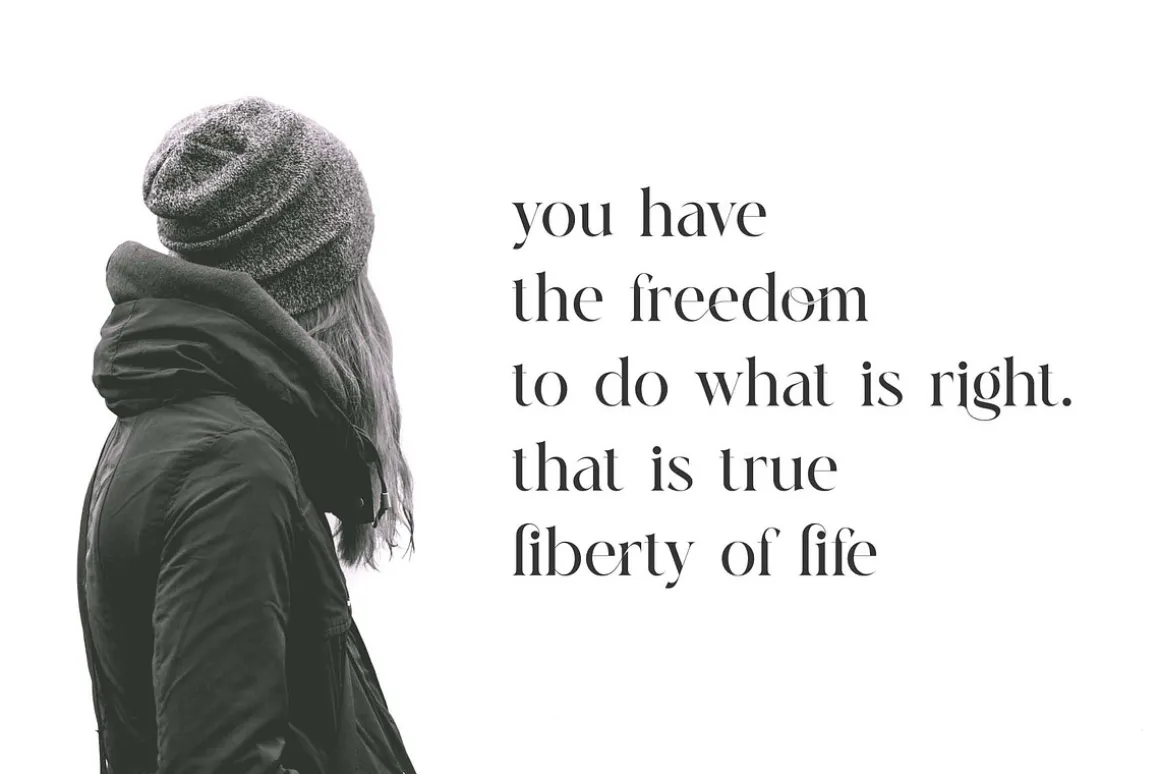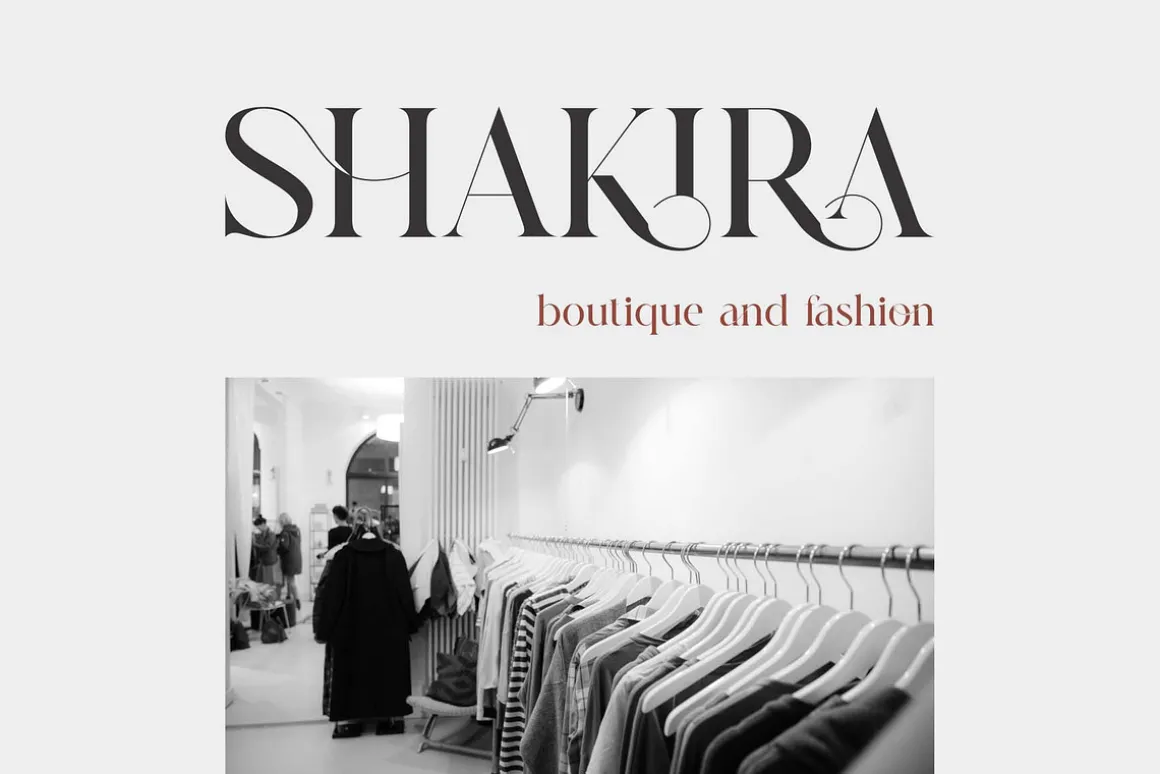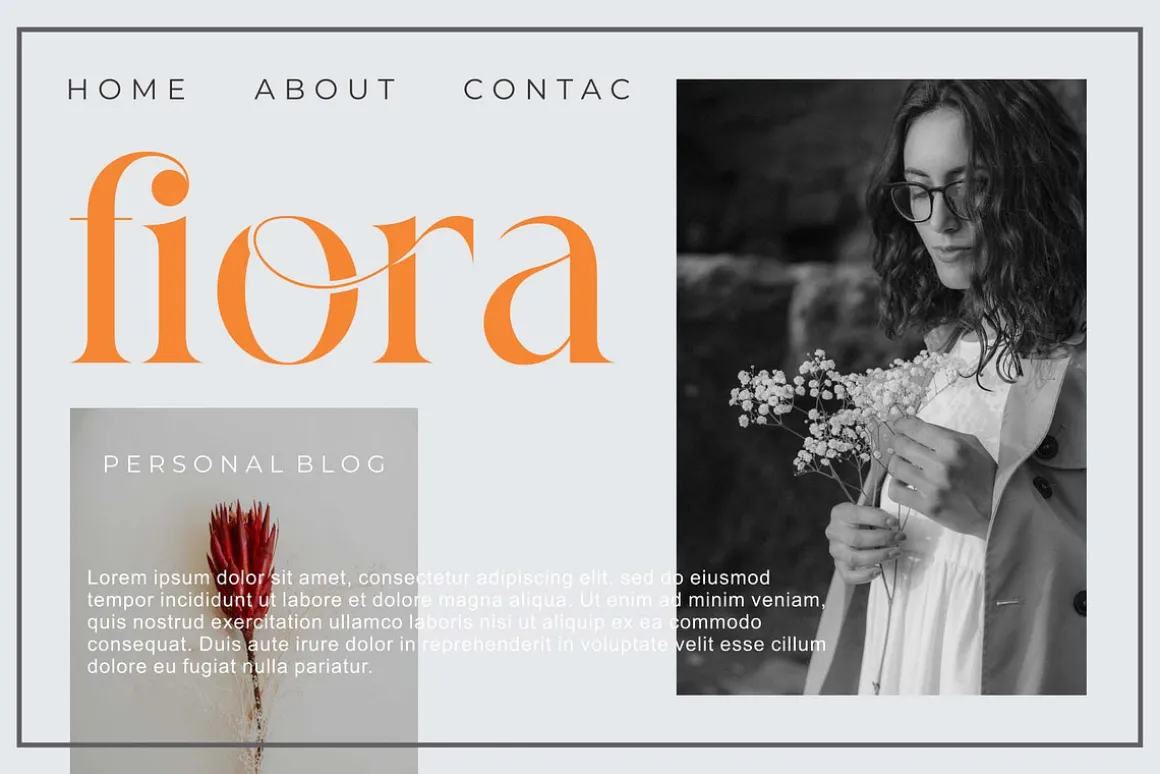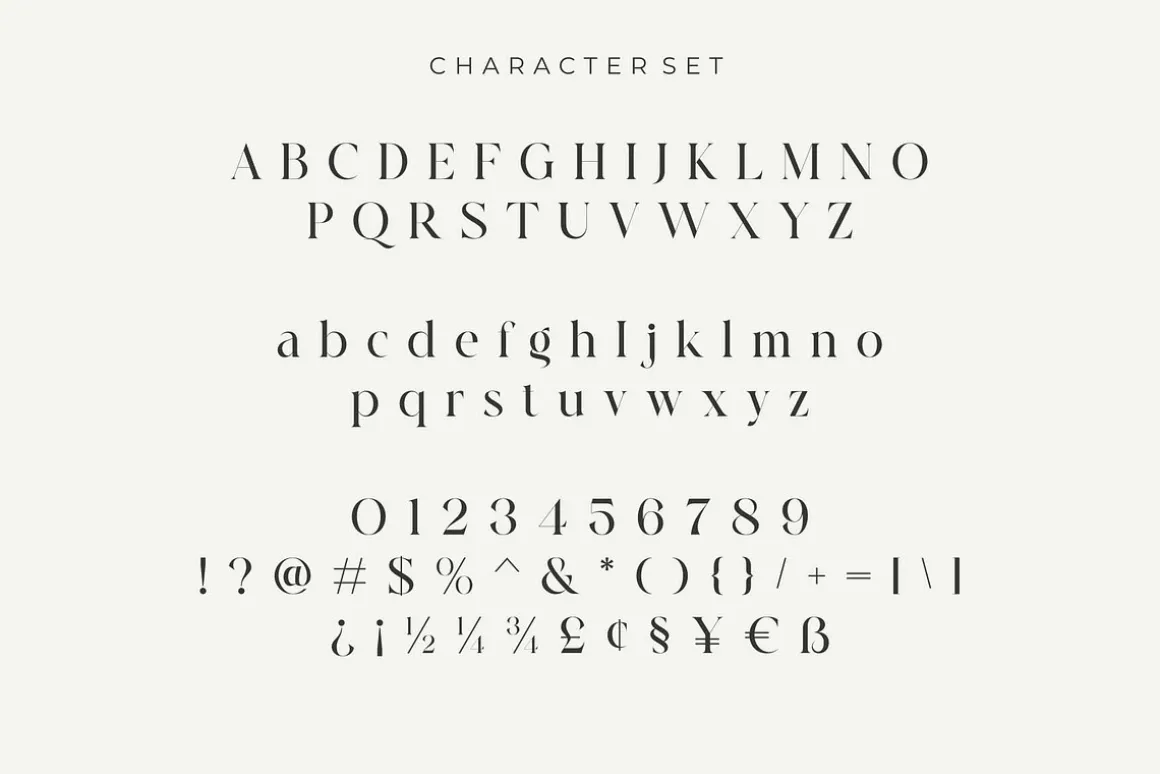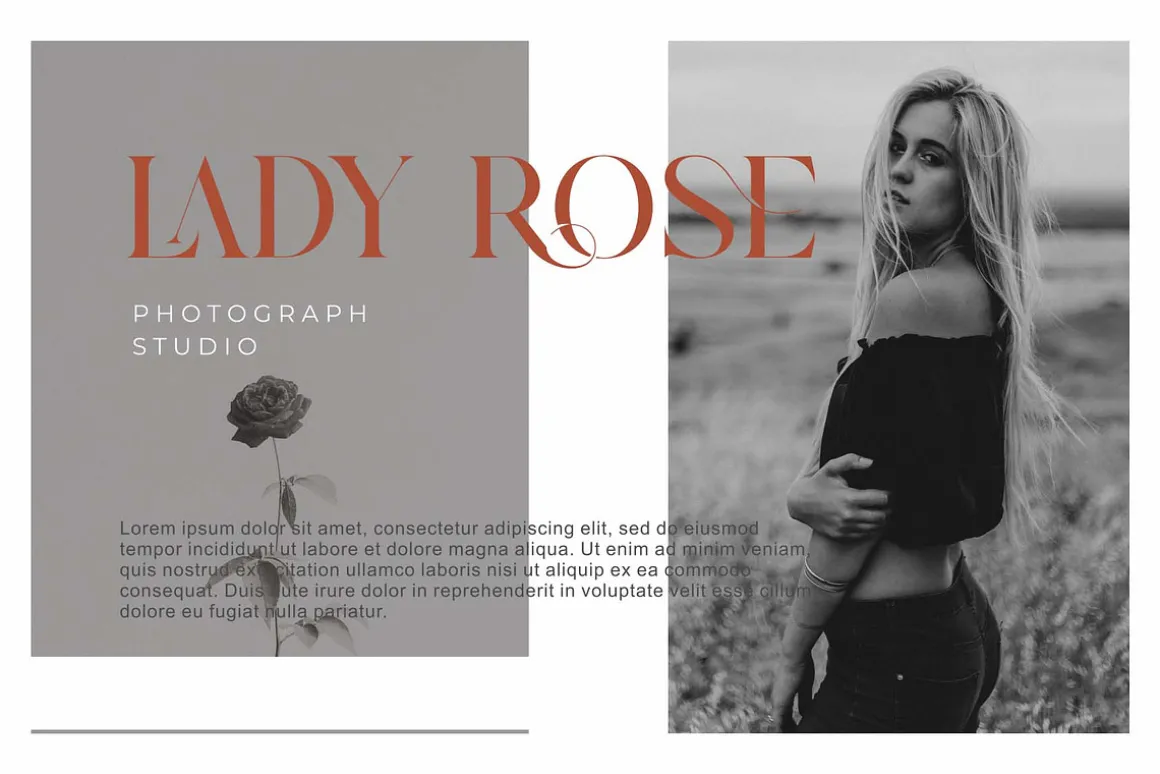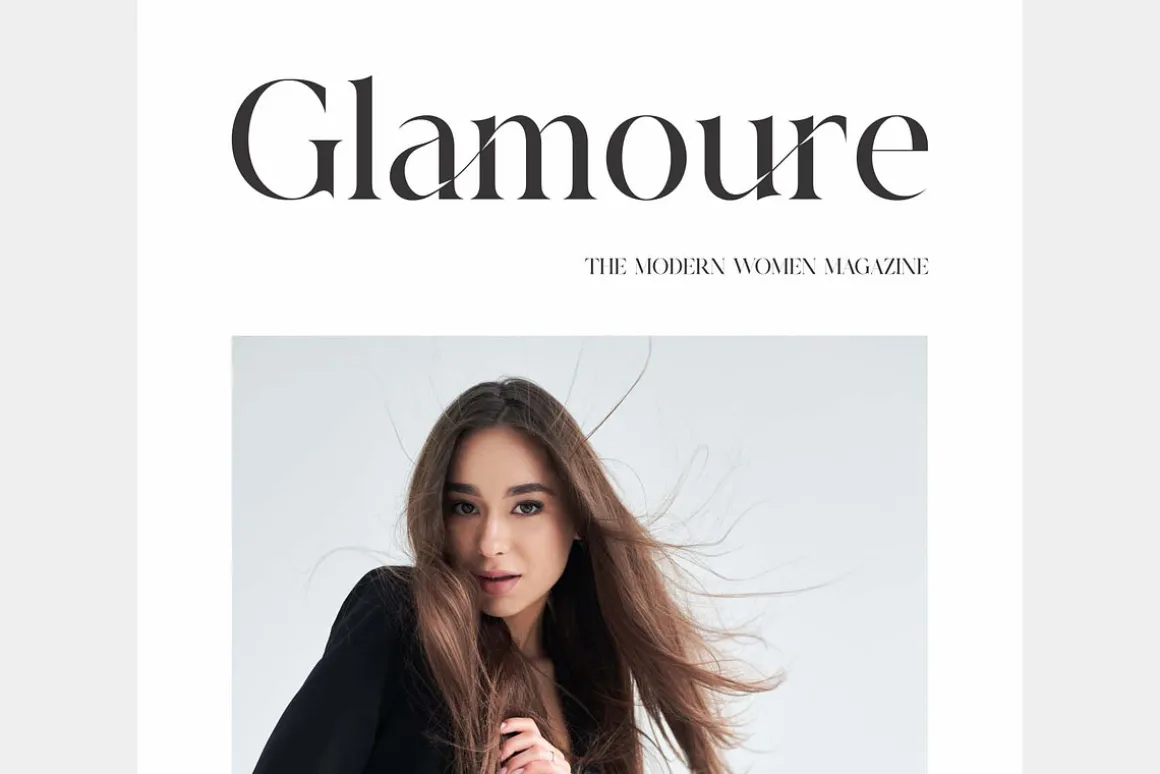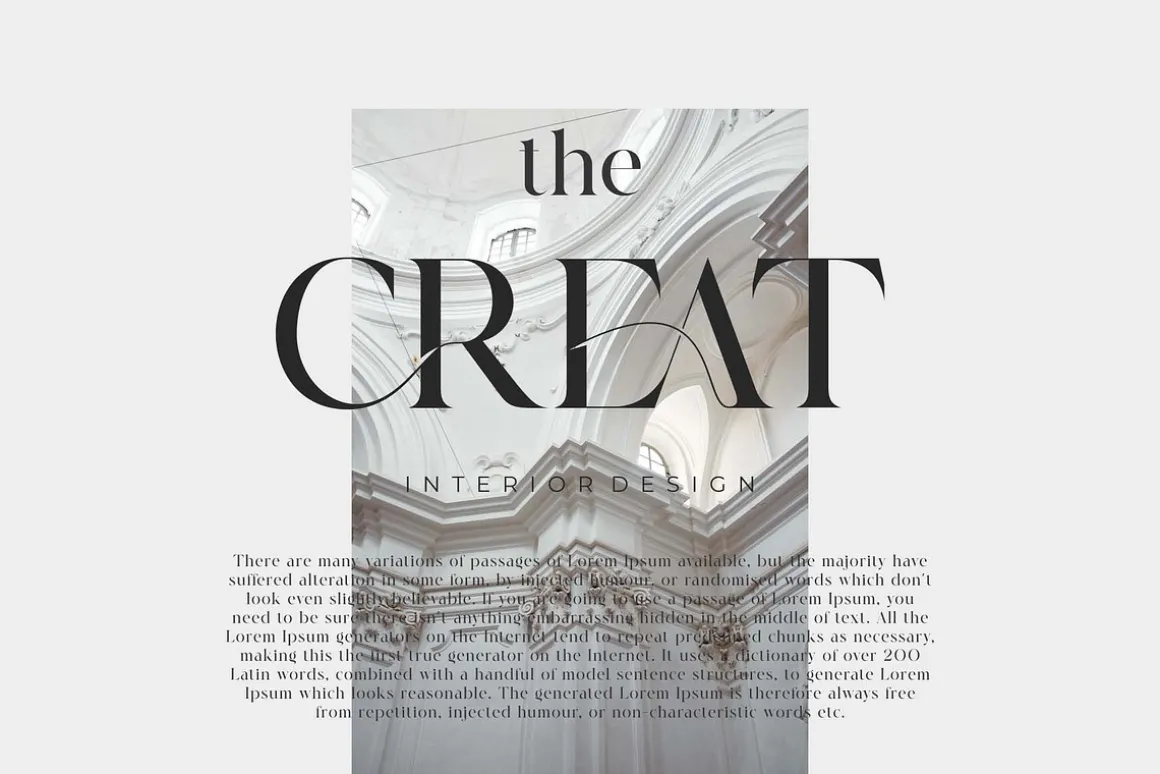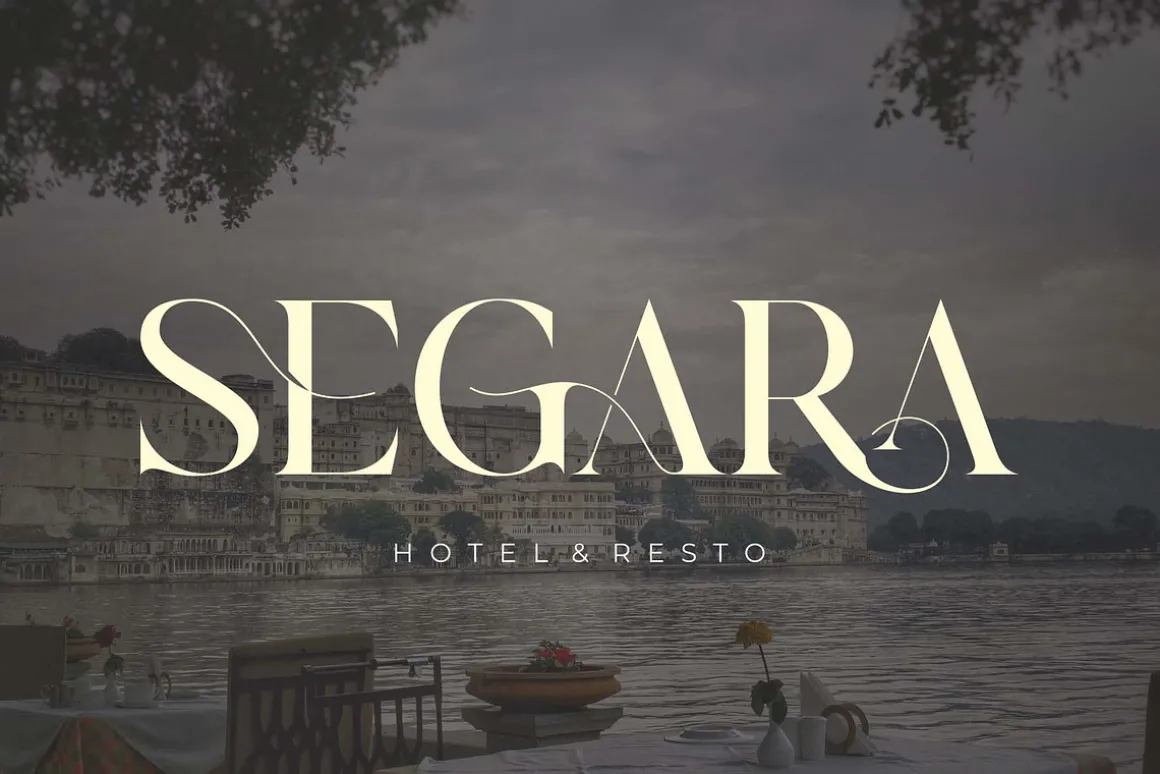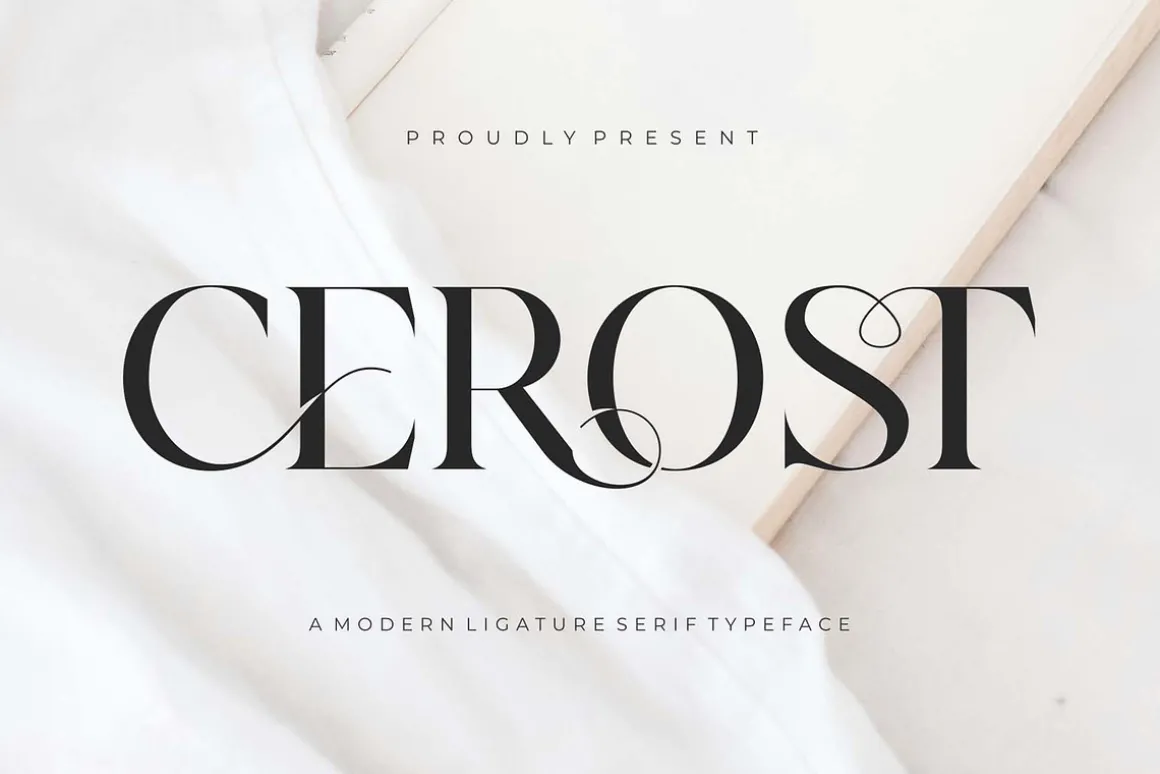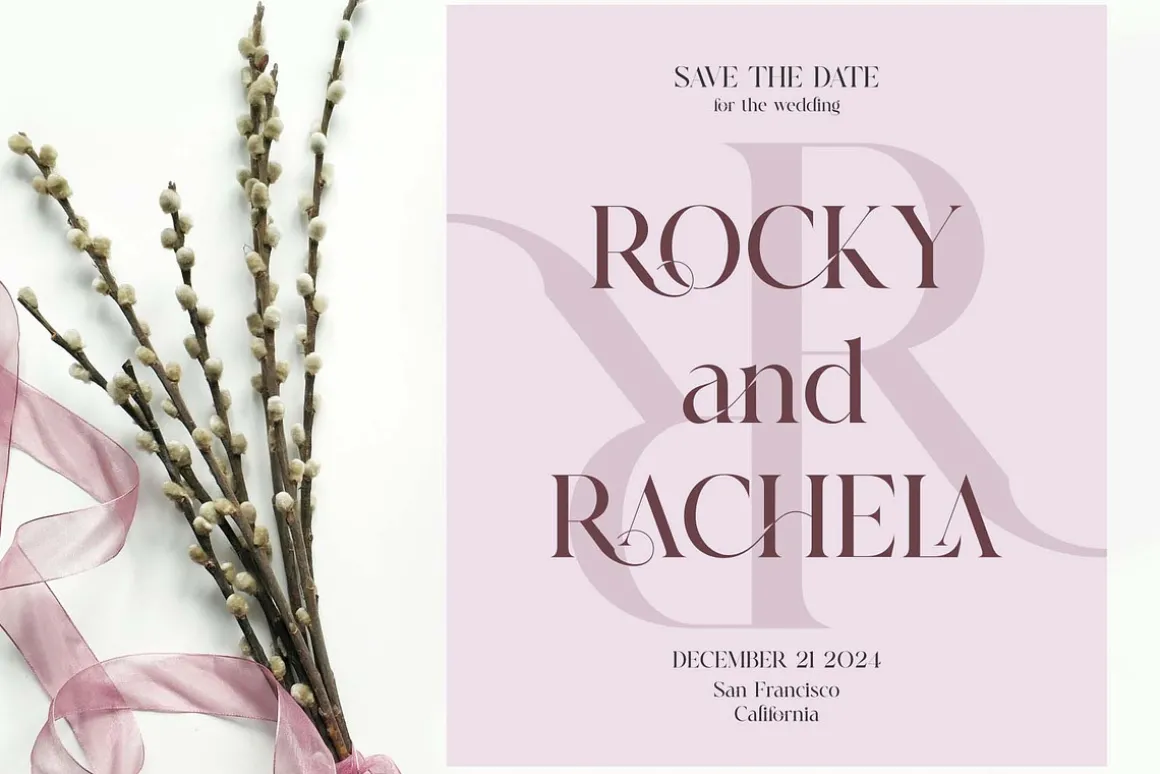
Cerost Modern Ligature Typeface Font inspired by the famous minimalist logo perfect for the purposes of designing templates, brochures, videos, advertising branding, logos, invitation, layout design, elegant crafting, beauty design and more.